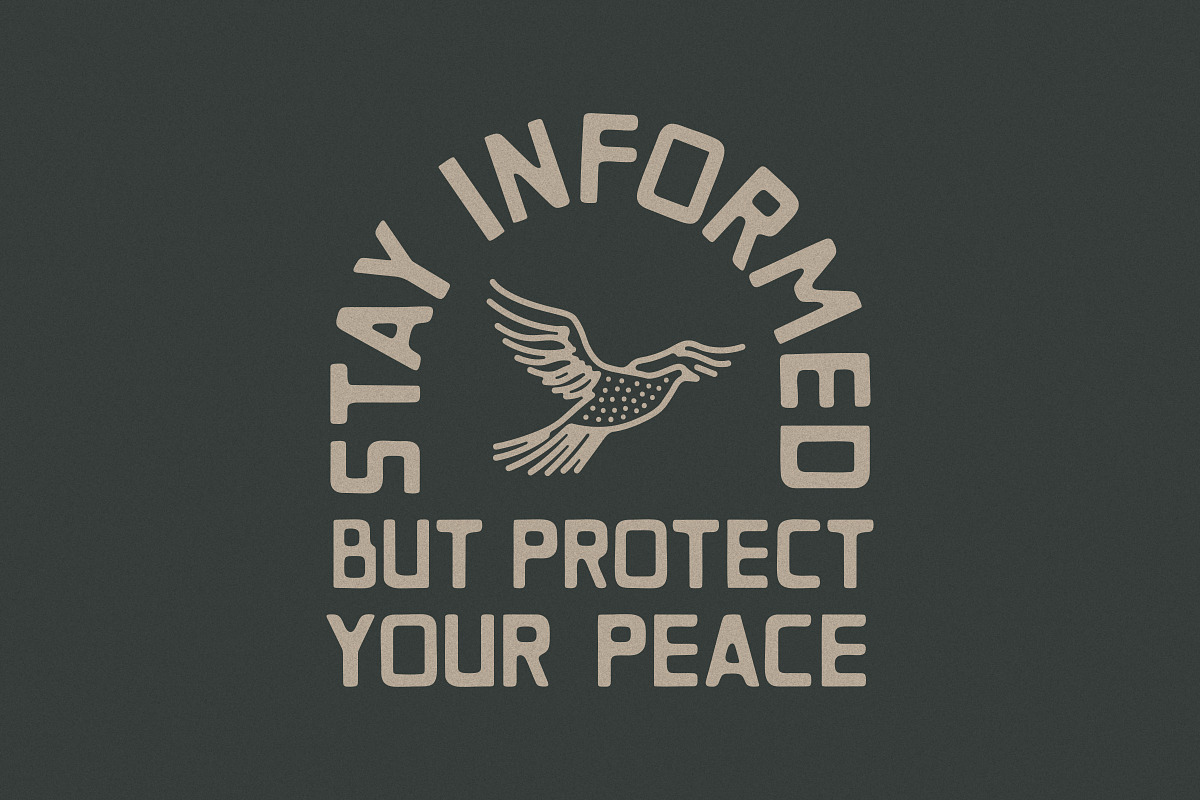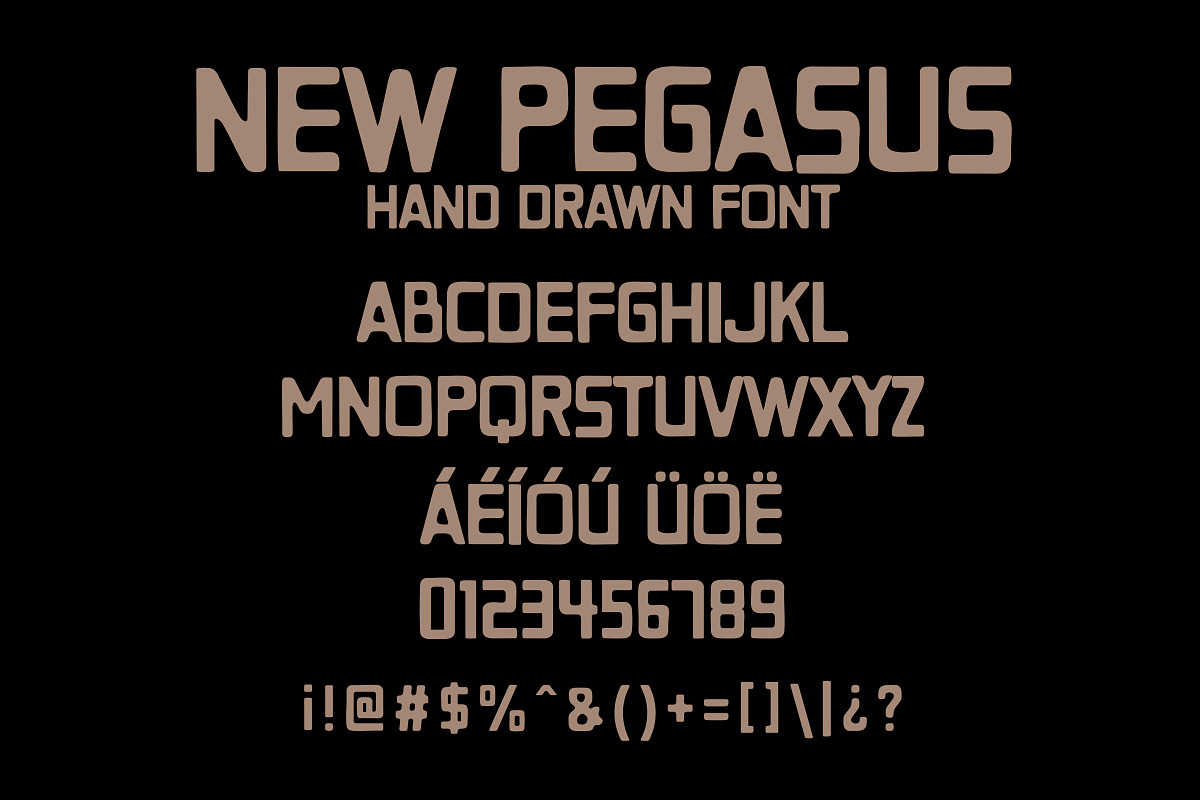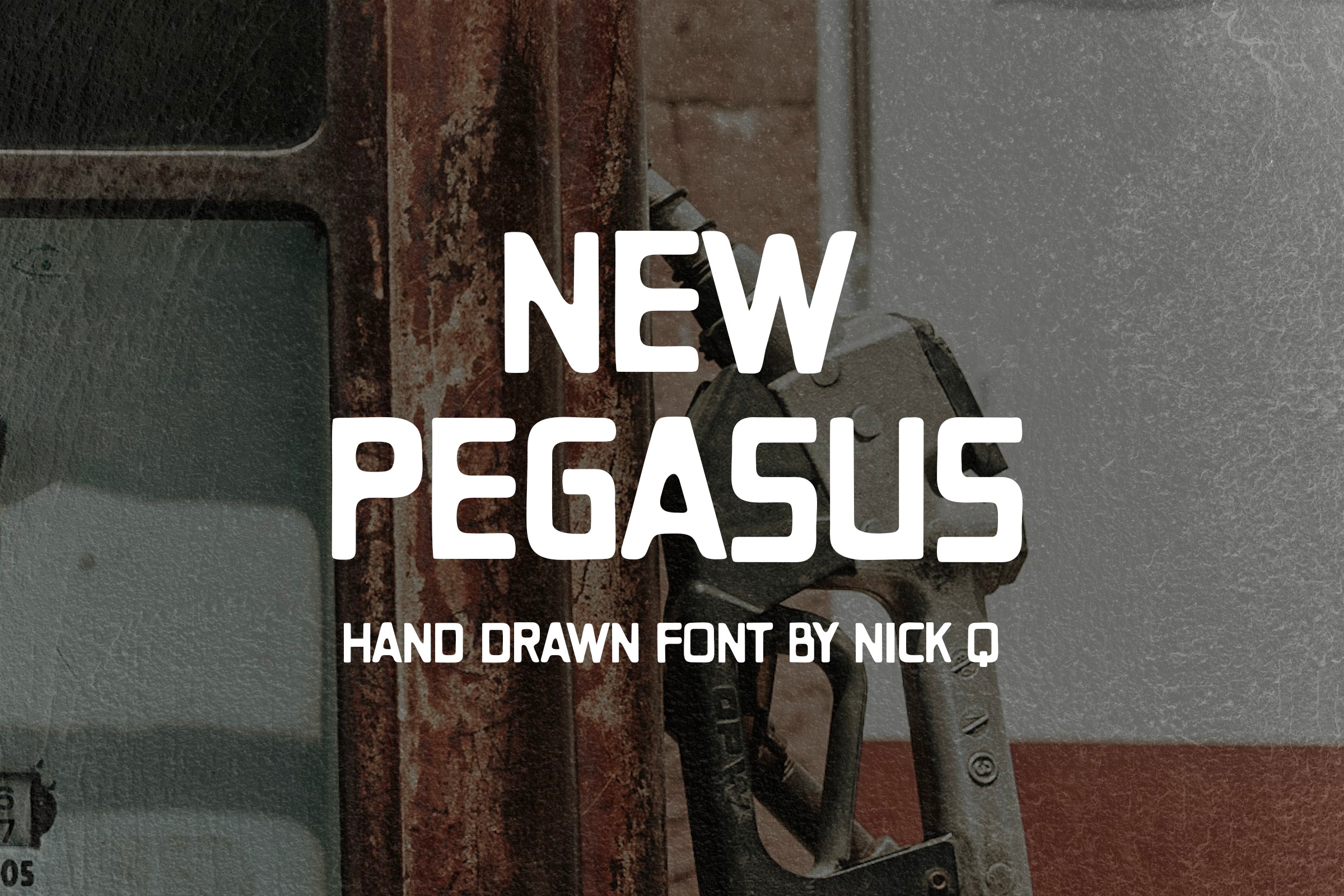
New Pegasus Hand Drawn Font
My newest font is inspired by ghost towns and gas stations in small towns in Texas, this one is called New Pegasus, a new update to my original font, Old Pegasus.